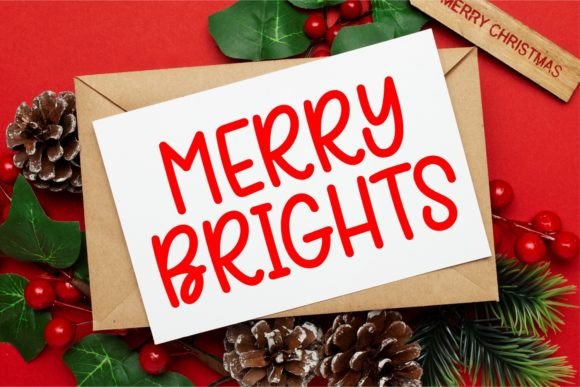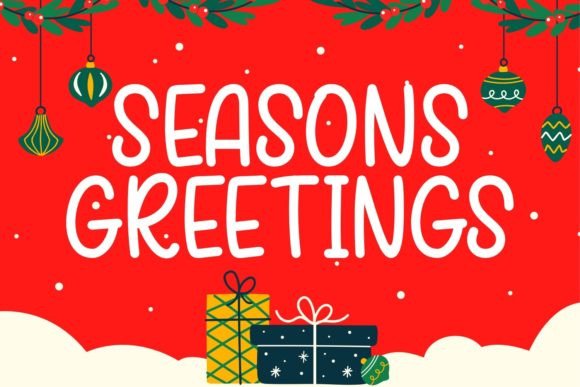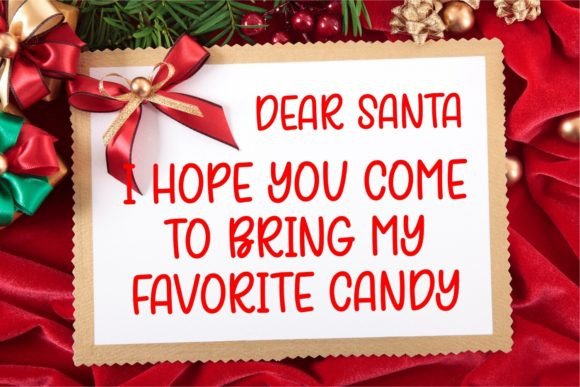
Introduction to Christmas Holidays Font
Christmas Holidays font is a delightful and charming display typeface that captures the festive spirit of the season.
With its playful and cute design, it’s perfect for adding a touch of holiday cheer to your Christmas-themed designs, from greeting cards to party invitations .
Key Features of Christmas Holidays Font